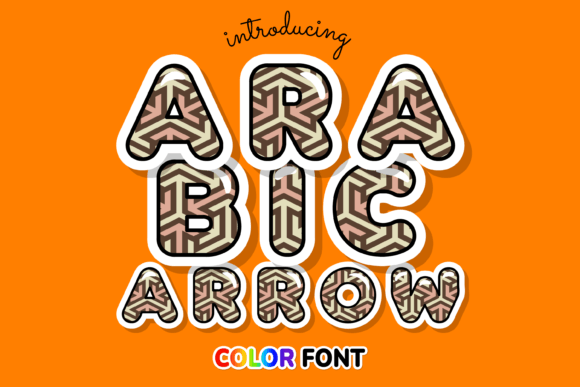
Journey into the mesmerizing world of Arabic Arrow, a color font that explodes with cheerfulness and creativity. Dive into a world where your designs dance with joy, DIY crafts burst with vibrancy, and every creation becomes a celebration of color.
This font is the ultimate playmate for your imagination, ready to add a splash of enchantment to all your projects. As an OpenType-SVG font, Arabic Arrow seamlessly blends with PhotoShop, Illustrator, Silhouette, and Inkscape, making it the perfect companion for your digital adventures.